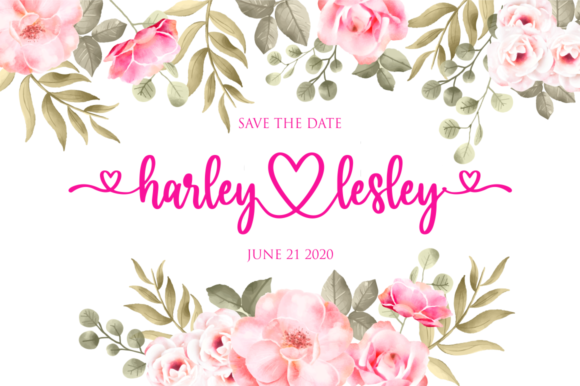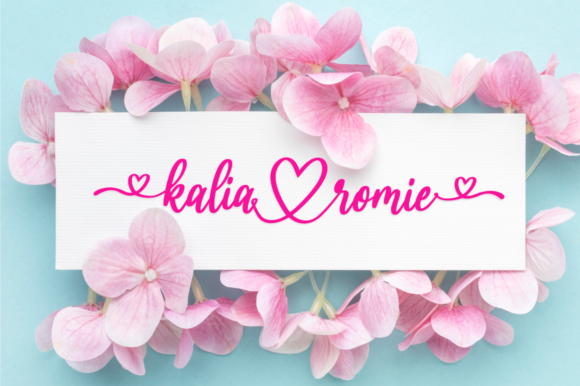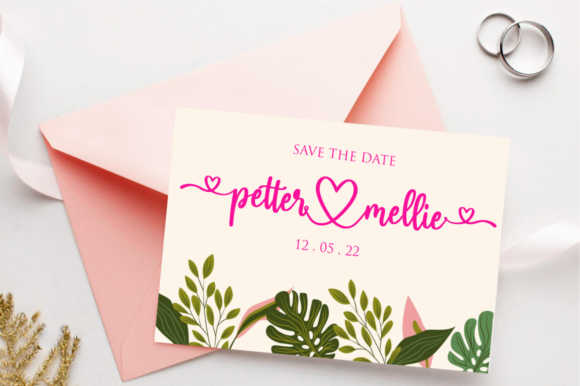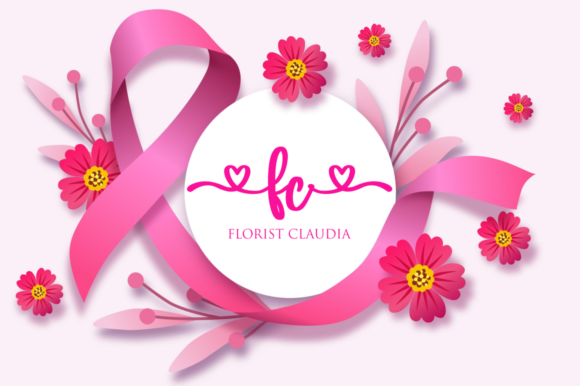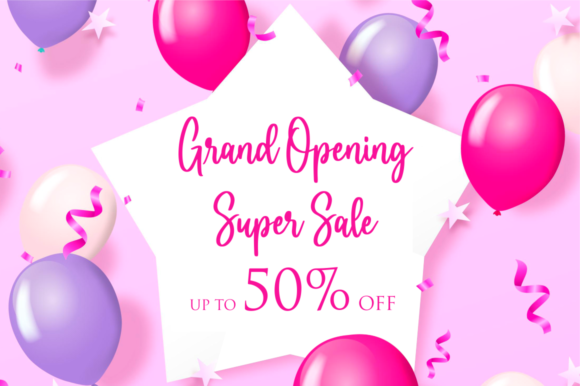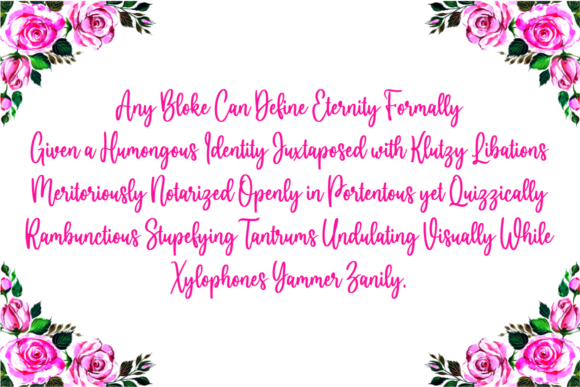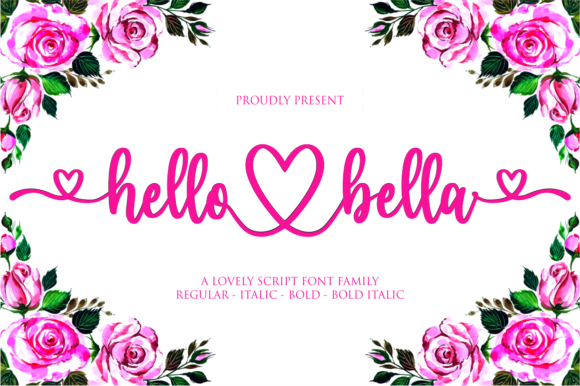
Hello Bella Font: Elevate Your Designs with a Touch of Romance
Are you on the hunt for a font that adds a dash of romance and elegance to your creative projects? Look no further than the Hello Bella font. This stunning handwritten font is designed to make your designs stand out from the crowd, and its versatility makes it perfect for a wide range of applications.
The Charm of Hello Bella Font
Hello Bella is a beautiful handwritten font with a romantic look that is sure to captivate your audience. Its elegant and flowing lines evoke a sense of sophistication and whimsy, making it ideal for designers and crafters who want to add a touch of personality to their work.
Whether you’re working on a branding project, creating wedding invitations, or designing social media graphics, Hello Bella font is the perfect choice. Its romantic and feminine vibe makes it perfect for projects that require a delicate touch.
What Makes Hello Bella Font Special?
So, what sets Hello Bella font apart from other fonts? For starters, it’s PUA encoded, which means you can access all of the glyphs and swashes with ease. This feature makes it incredibly easy to use and customize, allowing you to bring your creative vision to life.
PUA (Private Use Area) encoding allows font users to access a wide range of characters, including glyphs and swashes, that are not available in standard fonts. This means you can add intricate details and flourishes to your designs, taking them to the next level.
Hello Bella font offers endless creative possibilities for designers and crafters. Here are just a few ideas to get you started:
• Wedding Invitations: Create beautiful and romantic wedding invitations that set the tone for the big day.
• Branding: Use Hello Bella font to add a touch of elegance and sophistication to your brand’s identity.
• Social Media Graphics: Create eye-catching social media graphics that showcase your brand’s personality.
• Stationery: Design gorgeous stationery, including notecards, journals, and planners.
• Crafting: Use Hello Bella font to add a personal touch to your crafting projects, such as scrapbooking and DIY home decor.
Why Choose Hello Bella Font?
With so many fonts available, why choose Hello Bella font? Here are just a few reasons:
• Unique and Versatile: Hello Bella font is a one-of-a-kind font that can be used in a wide range of creative projects.
• Elegant and Romantic: Its elegant and romantic design makes it perfect for projects that require a touch of sophistication.
• Easy to Use: PUA encoding makes it easy to access all of the glyphs and swashes, allowing you to bring your creative vision to life.
Hello Bella font is a beautiful handwritten font with a romantic look that is sure to elevate your designs. Its versatility, elegance, and ease of use make it perfect for designers and crafters who want to add a touch of personality to their work.
Whether you’re working on a branding project, creating wedding invitations, or designing social media graphics, Hello Bella font is the perfect choice. So why wait? Add Hello Bella font to your creative toolkit and notice how it will make your designs stand out!
• Beautiful handwritten font with a romantic look
• PUA encoded for easy access to glyphs and swashes
• Perfect for a wide range of creative projects, including branding, wedding invitations, and social media graphics
• Elegant and sophisticated design
• Easy to use and customize